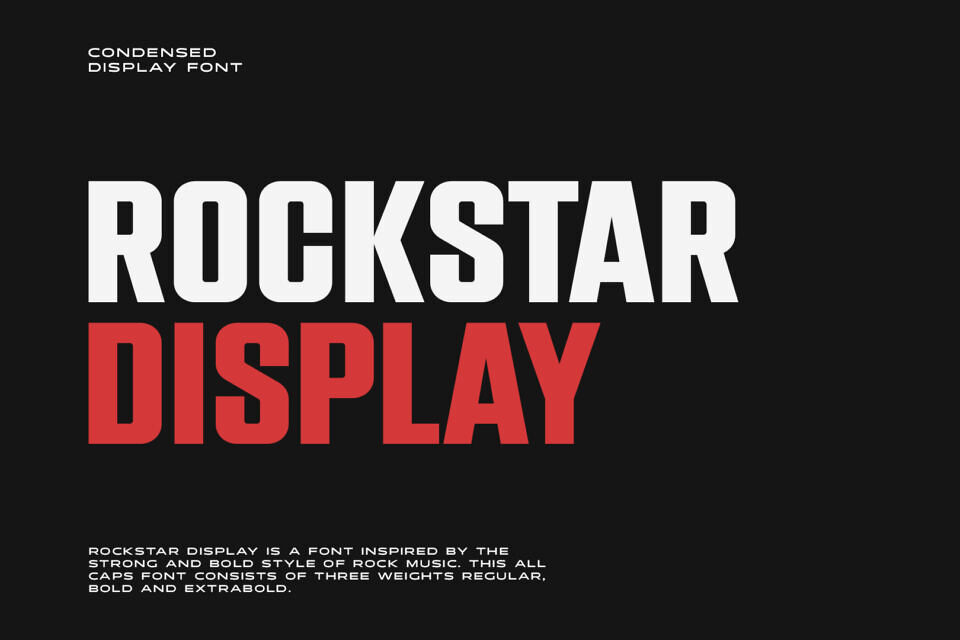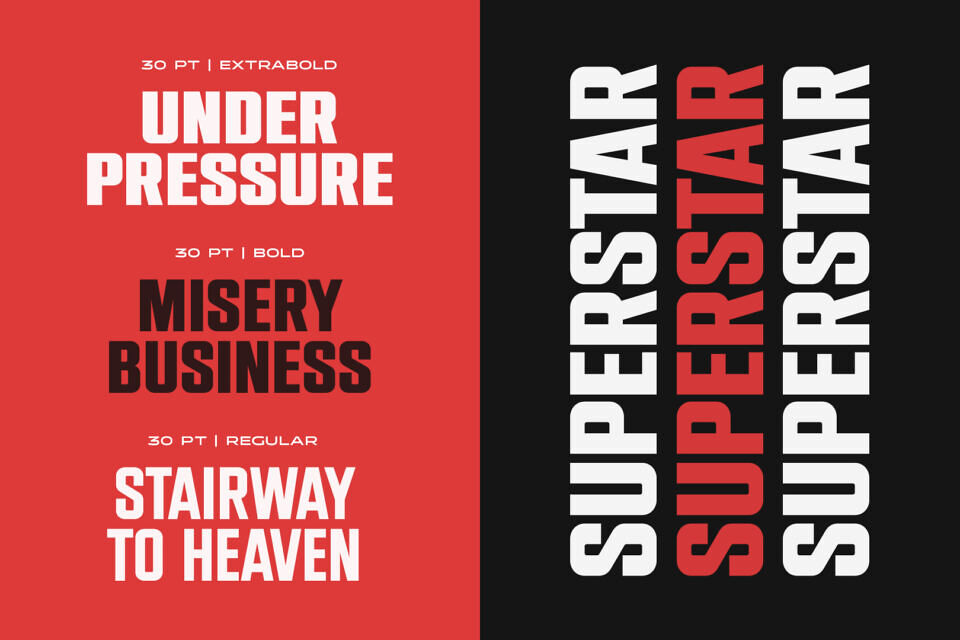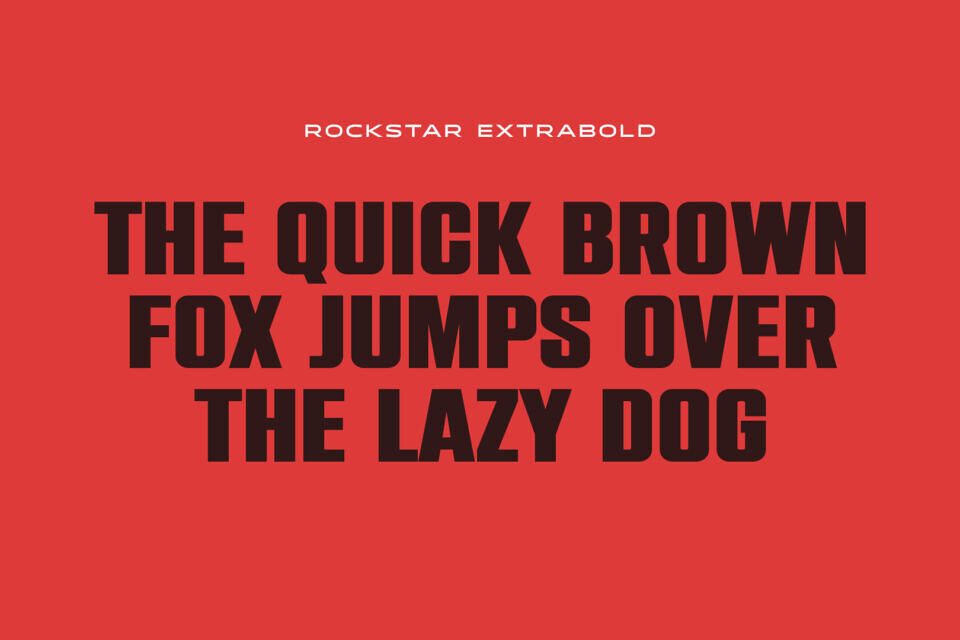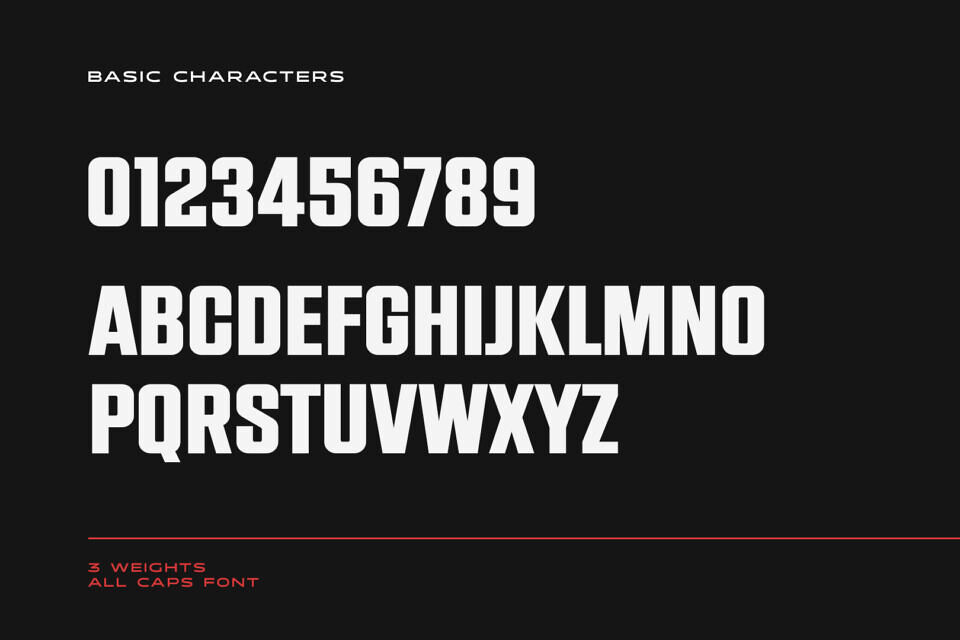
Rockstar is a bold, all-caps display font inspired by the energy of rock music, from heavy metal to alternative rock. Designed with strong, thick lettering and a modern sans-serif style, it’s perfect for posters, album covers, logos, website headers, and apparel designs. Its futuristic and edgy appearance makes it ideal for eye-catching headlines and creative branding projects.